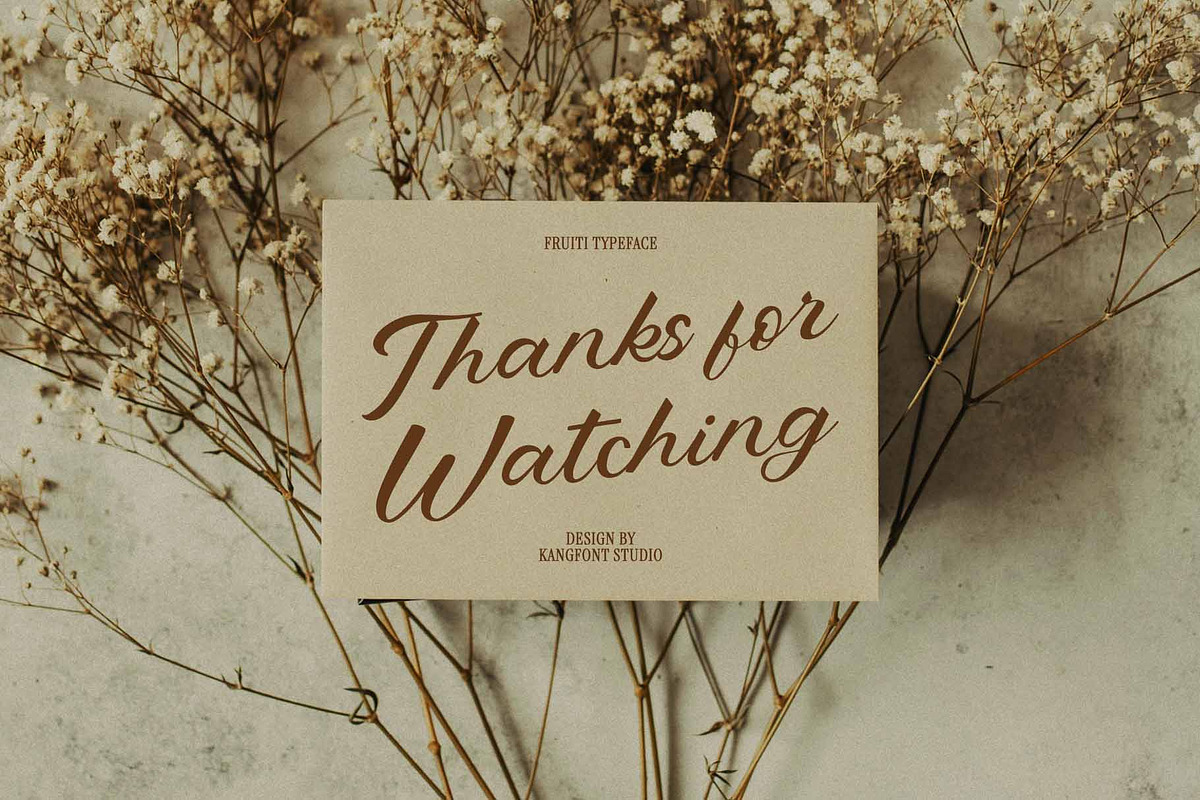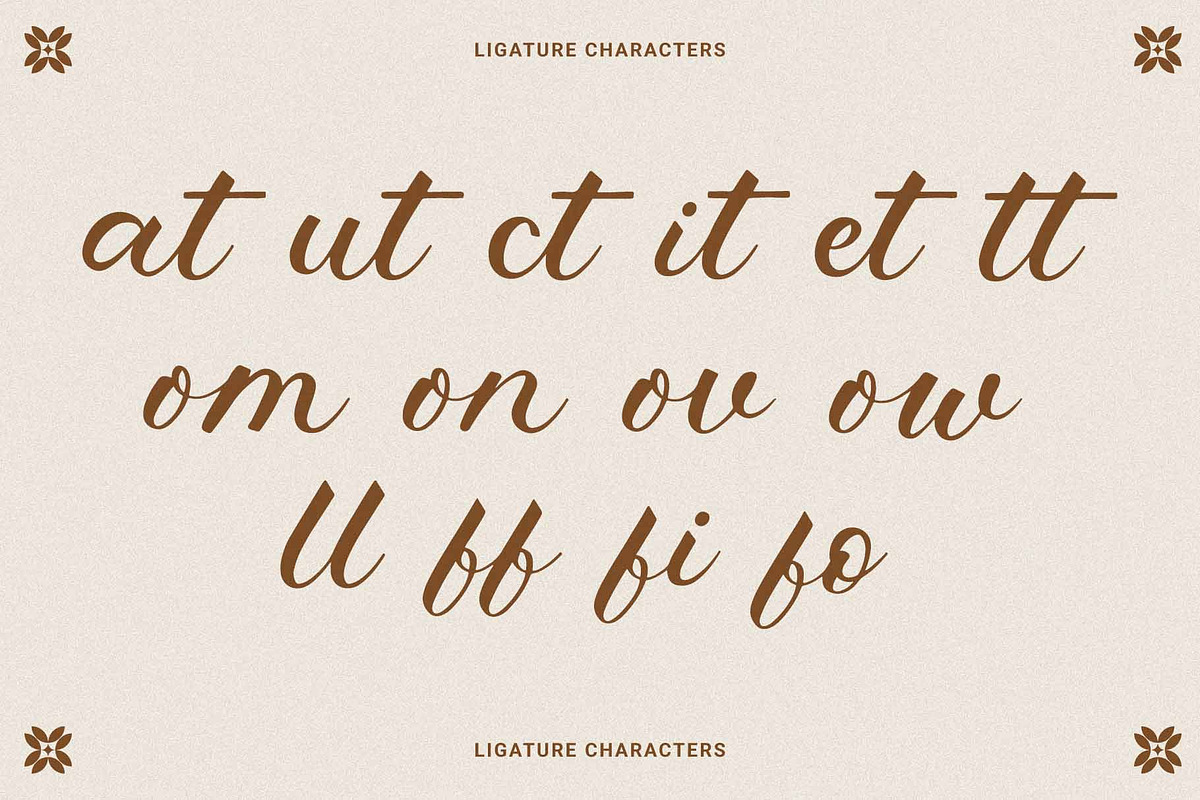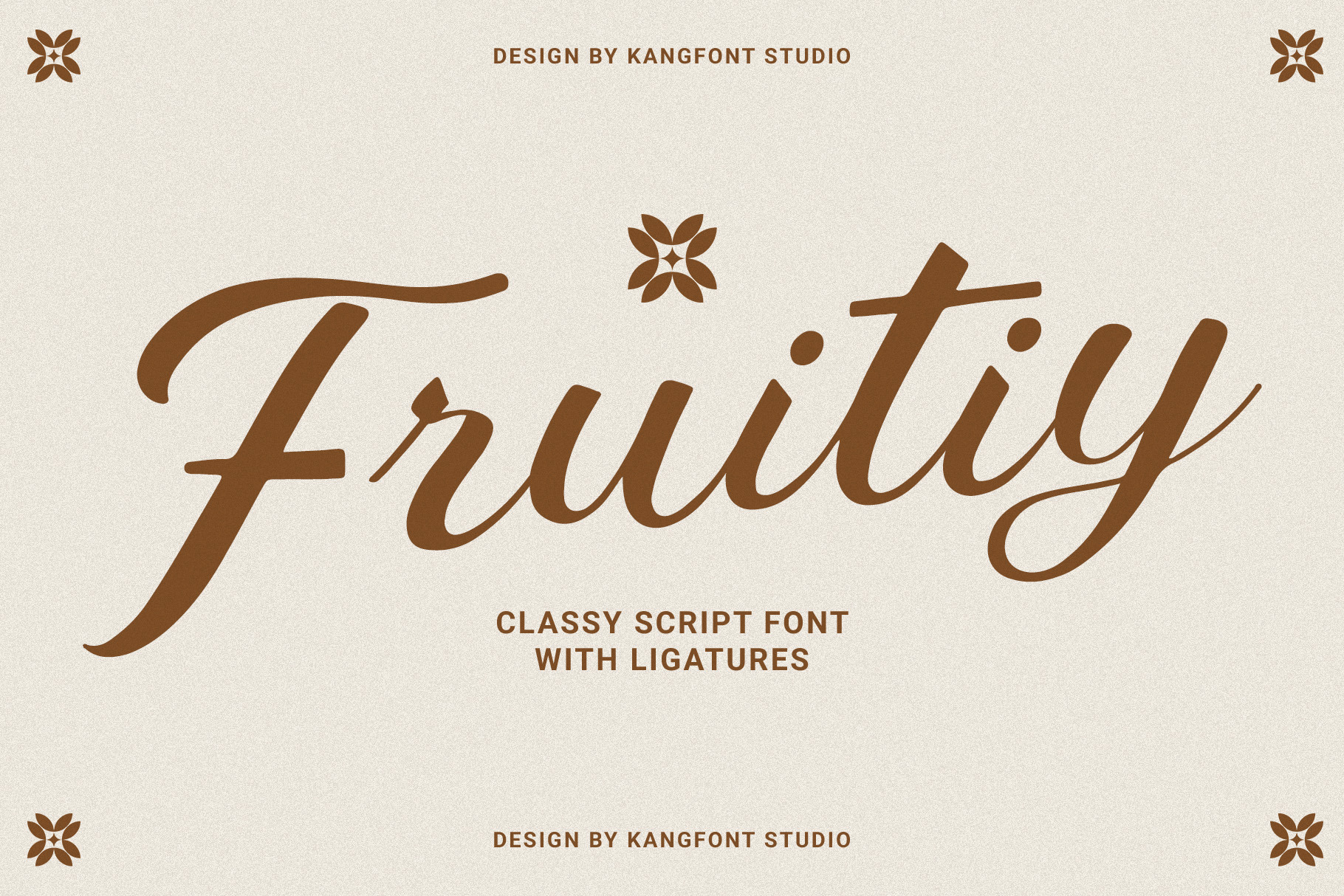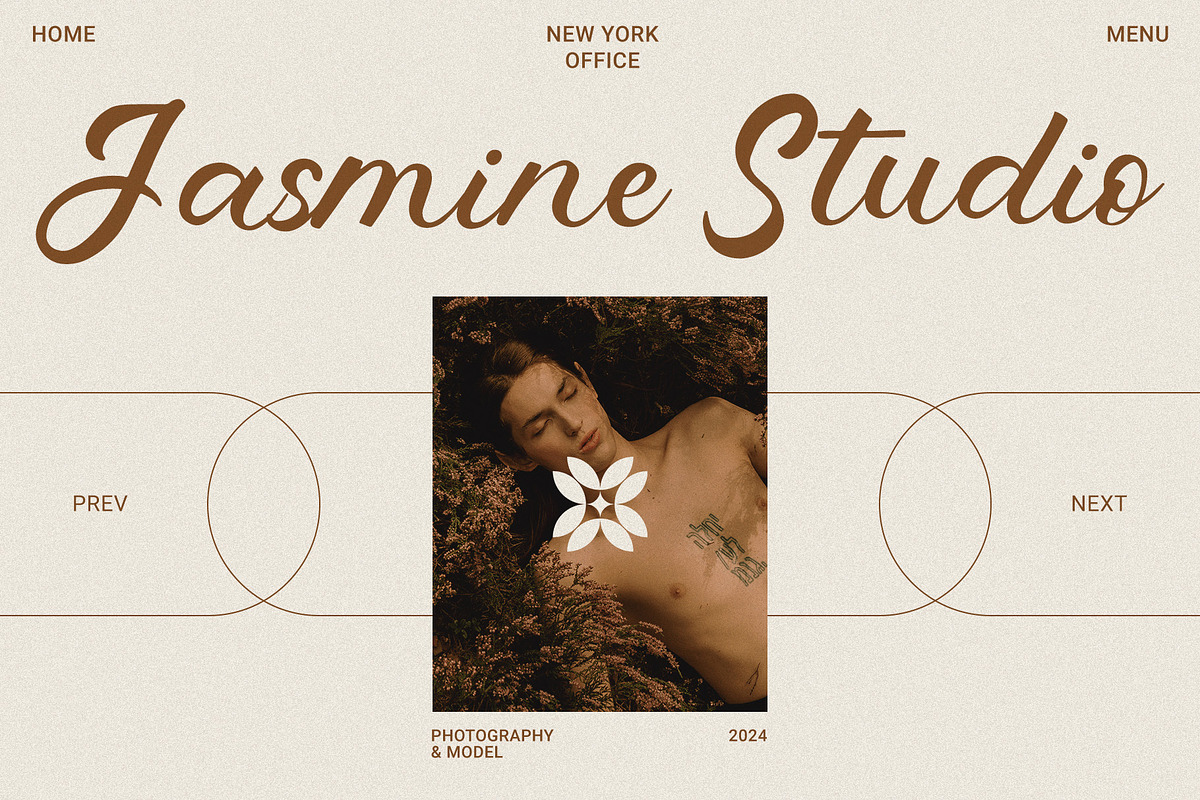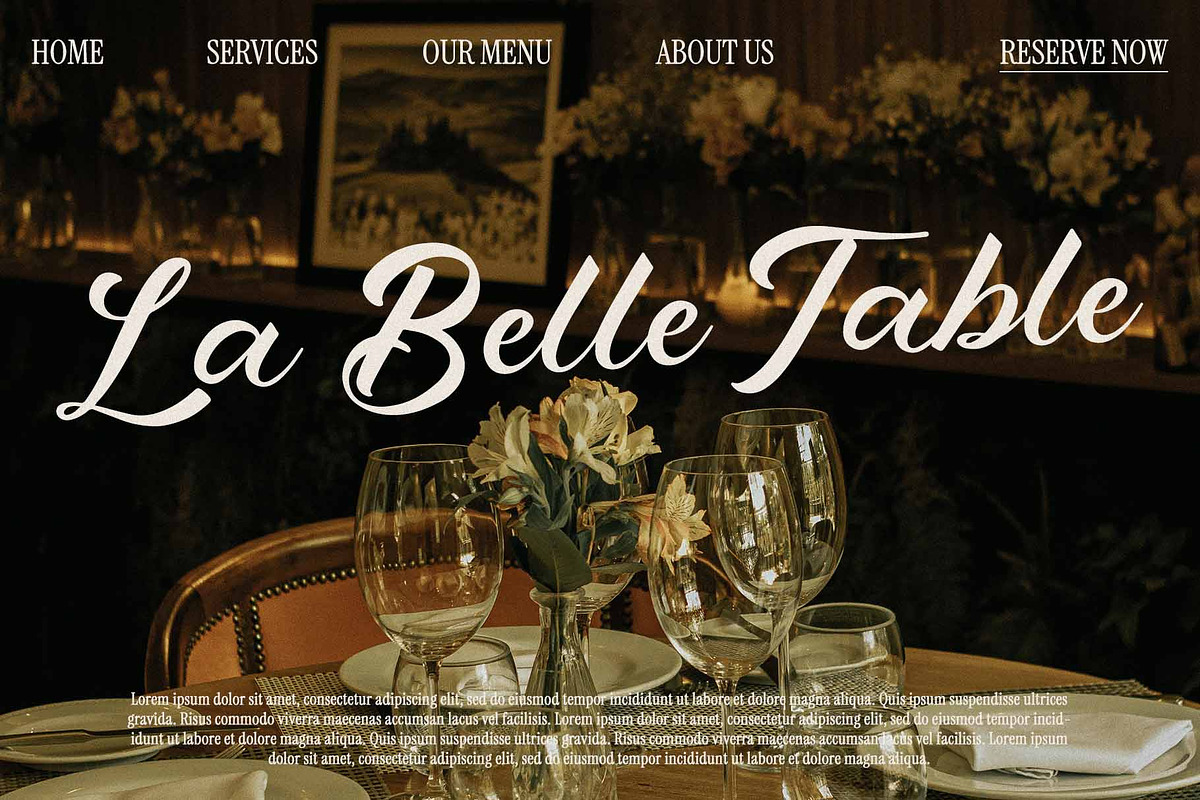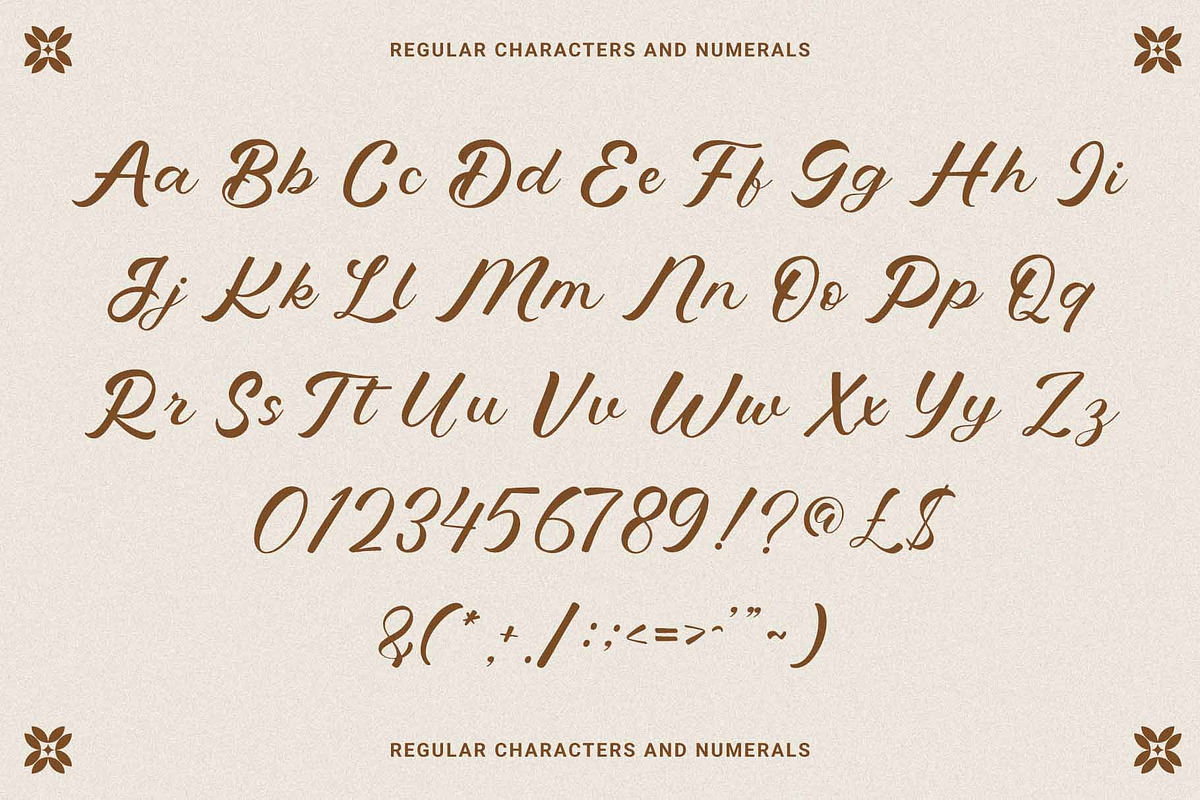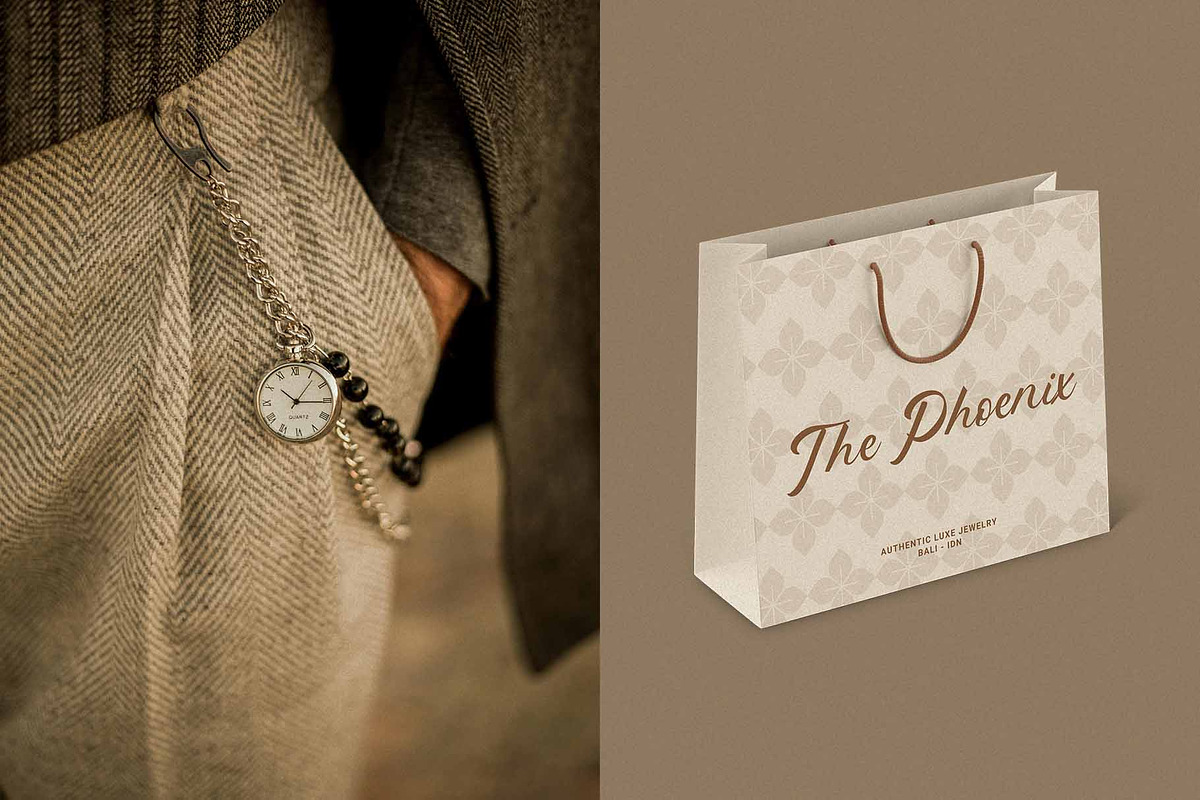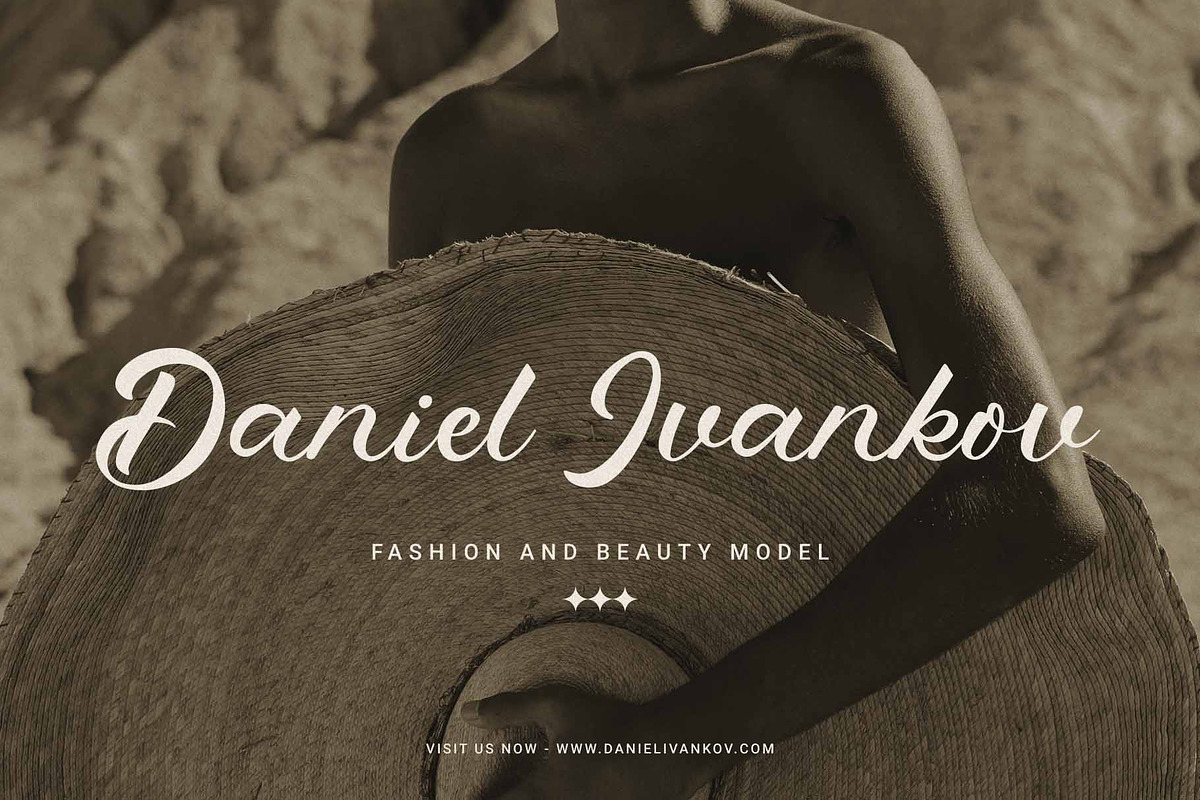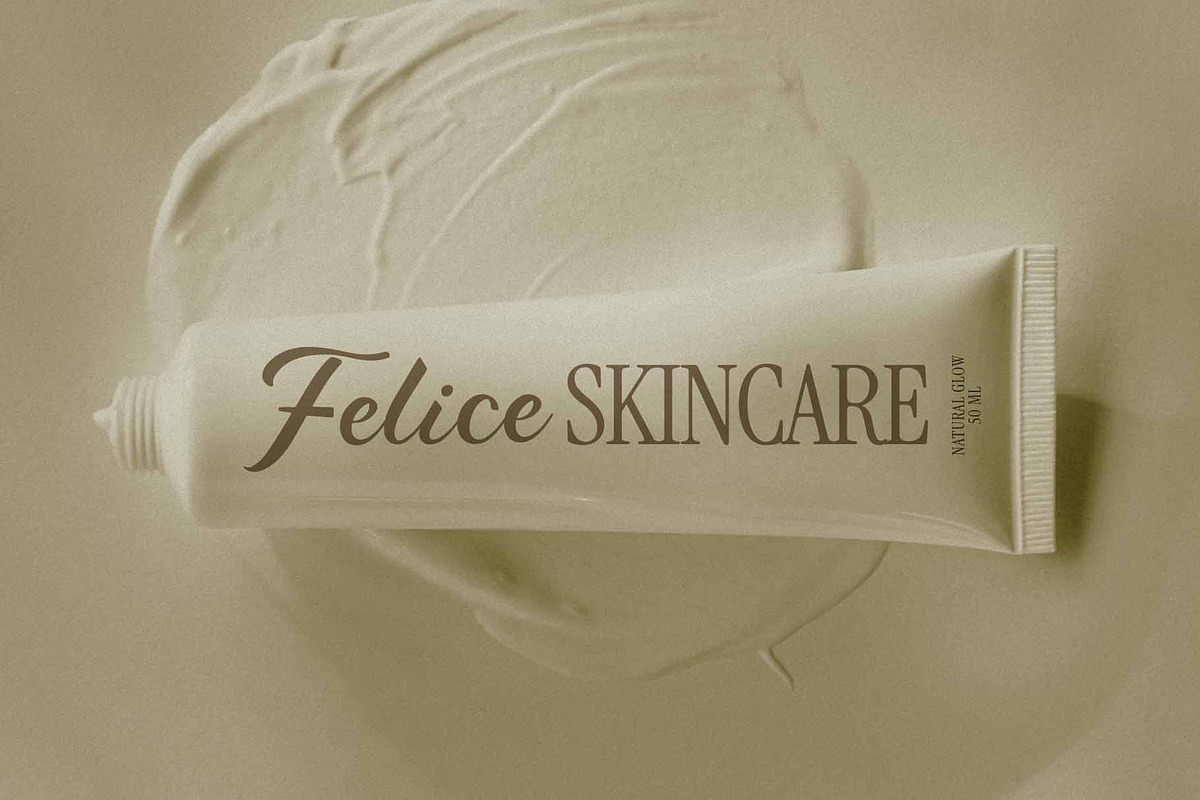
Fruitiy - Elegant Script Font
The "Fruity" font is a classy and elegant script typeface designed with fine details and enhanced by ligatures that add a touch of visual sophistication. With its smooth curves and natural flow, this font is perfect for various design needs, such as invitations, logos, branding, and typographic decorations that emphasize a feminine and professional aesthetic.
Fruity combines timeless elegance with a modern flair, offering a luxurious and clean feel to any creative project. The warm brown palette showcased in the example adds a cozy and natural vibe, making it ideal for lifestyle, fashion, or organic product-related designs.